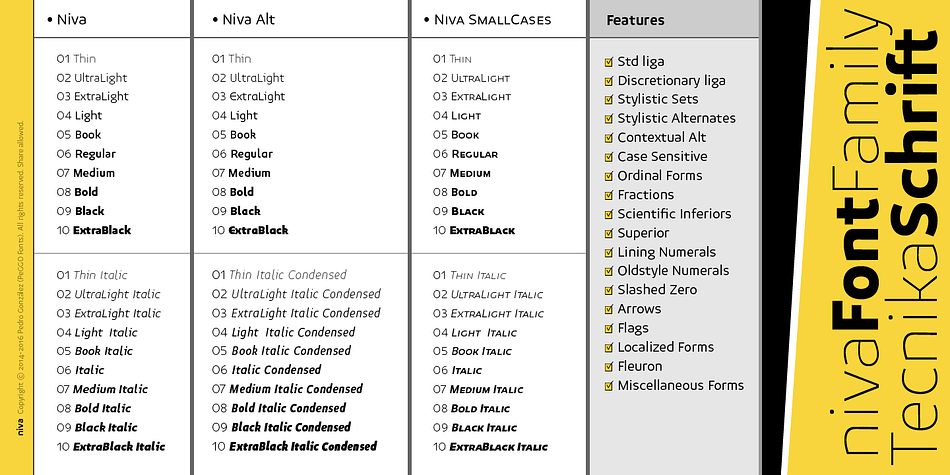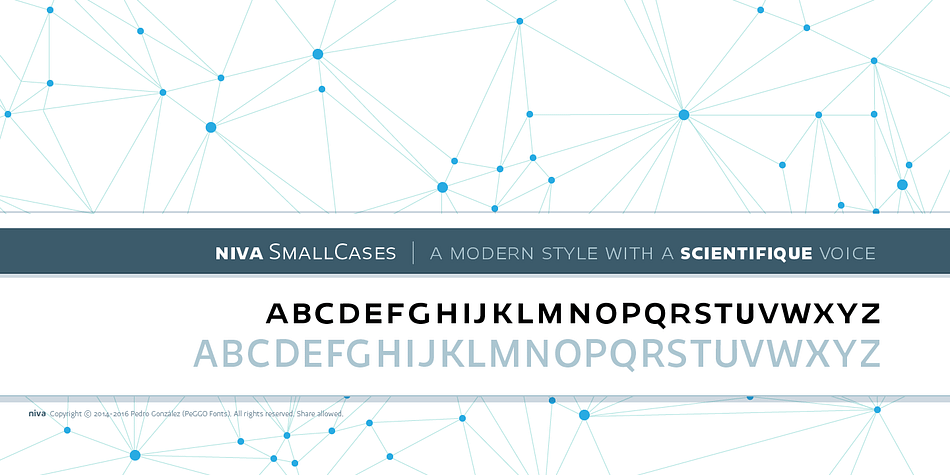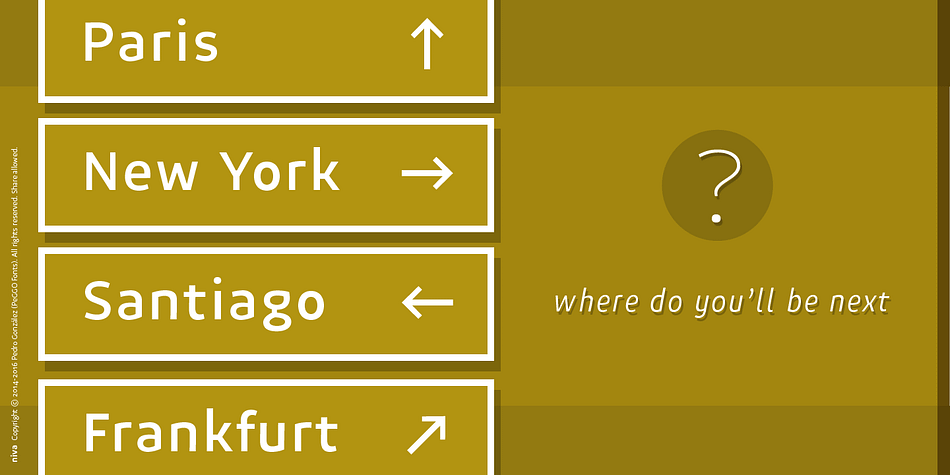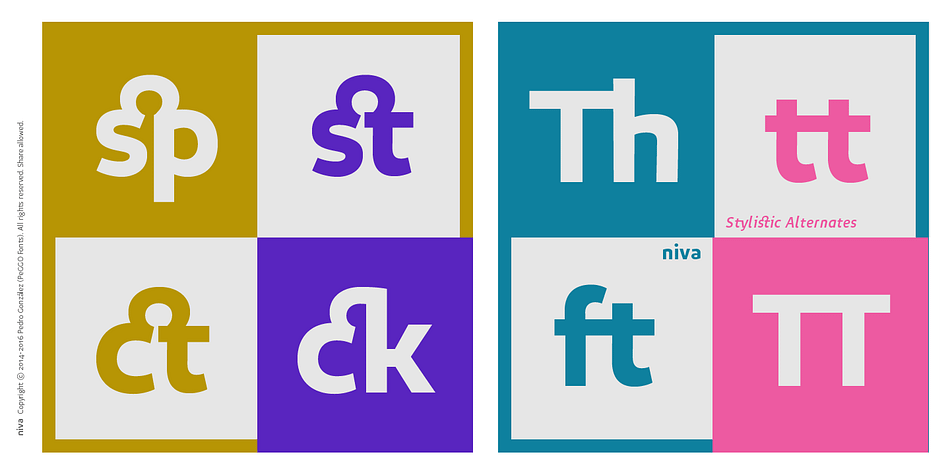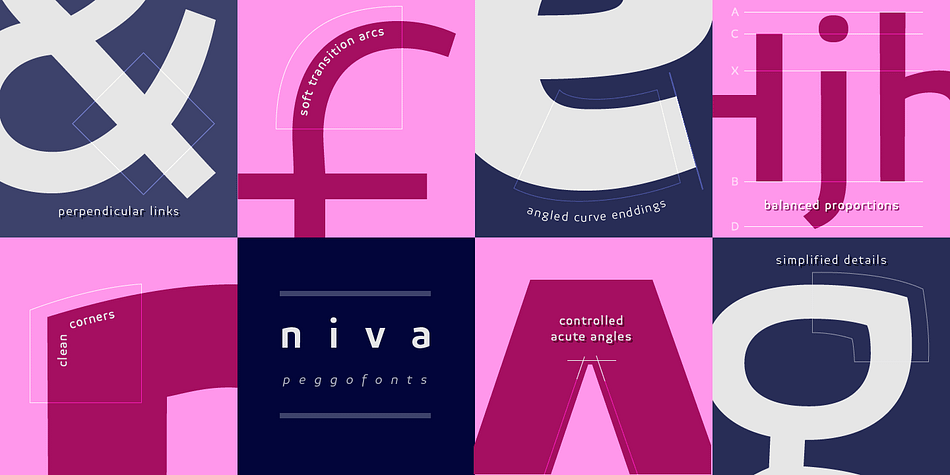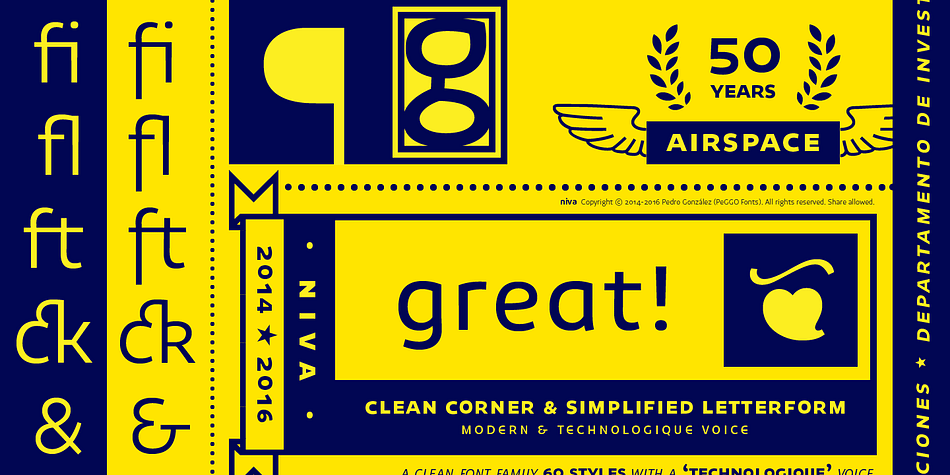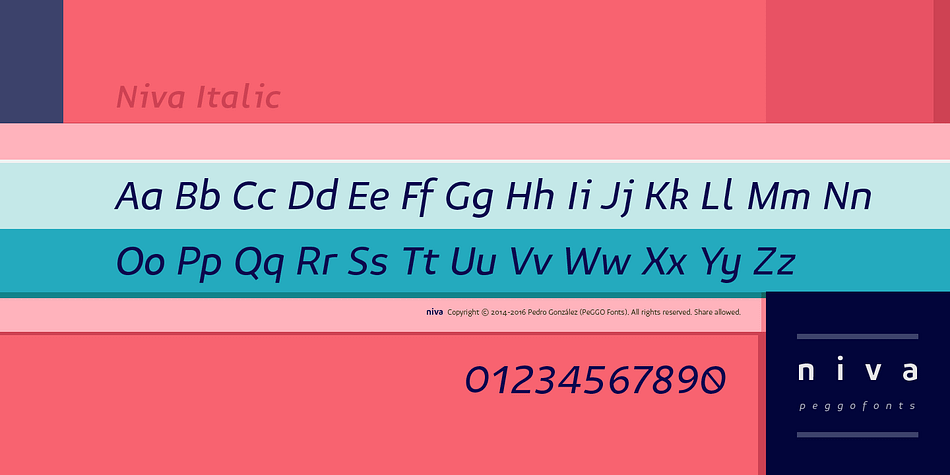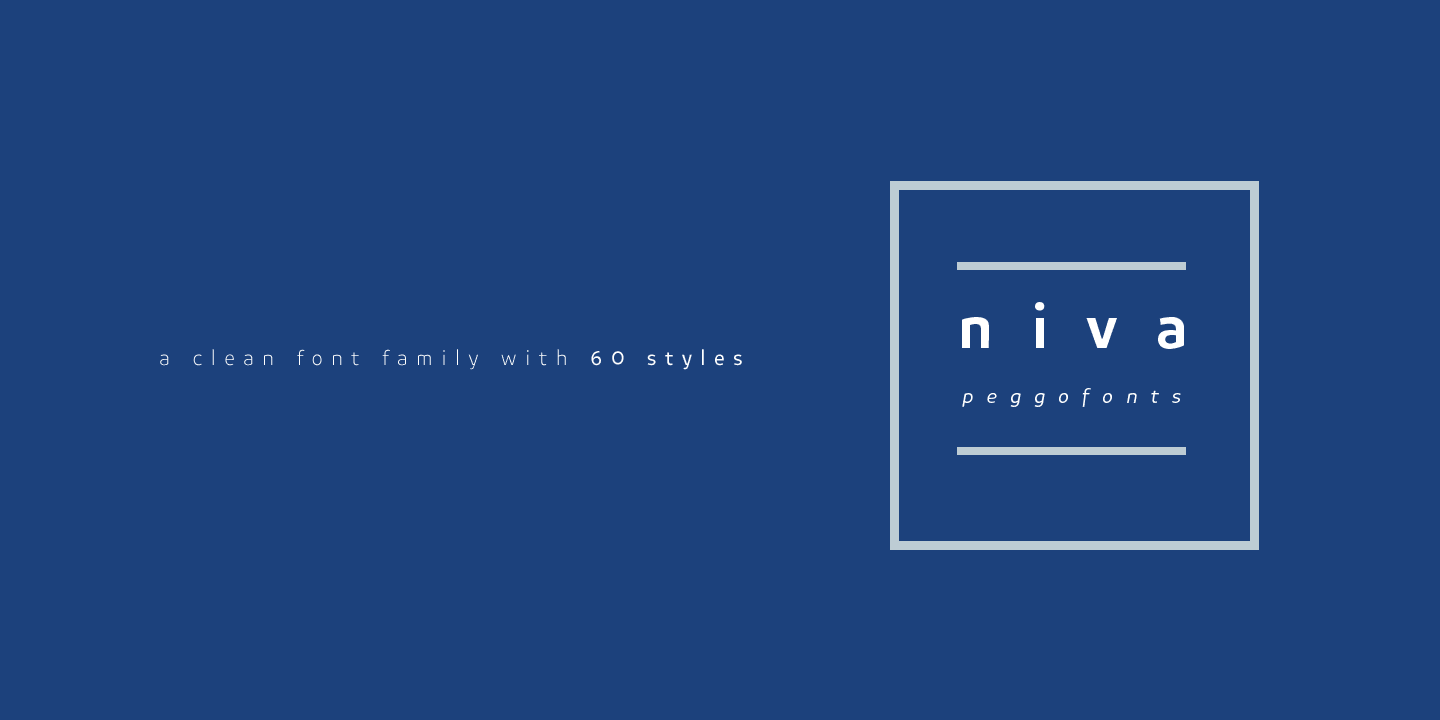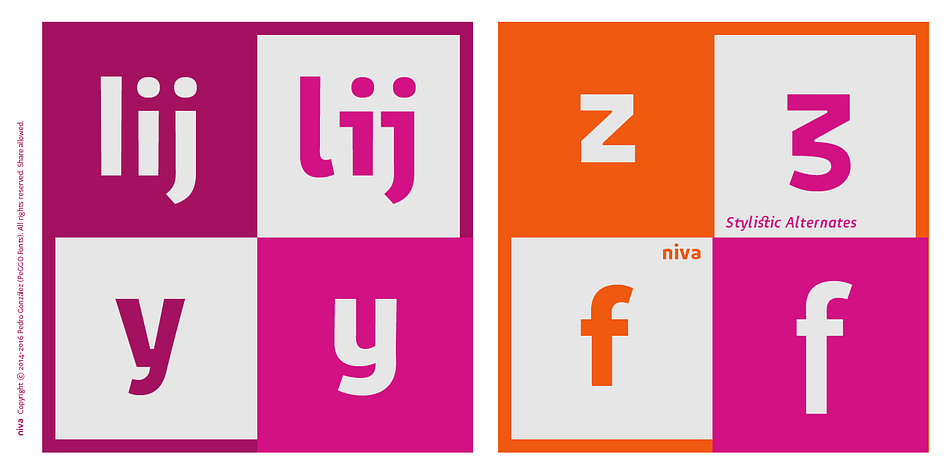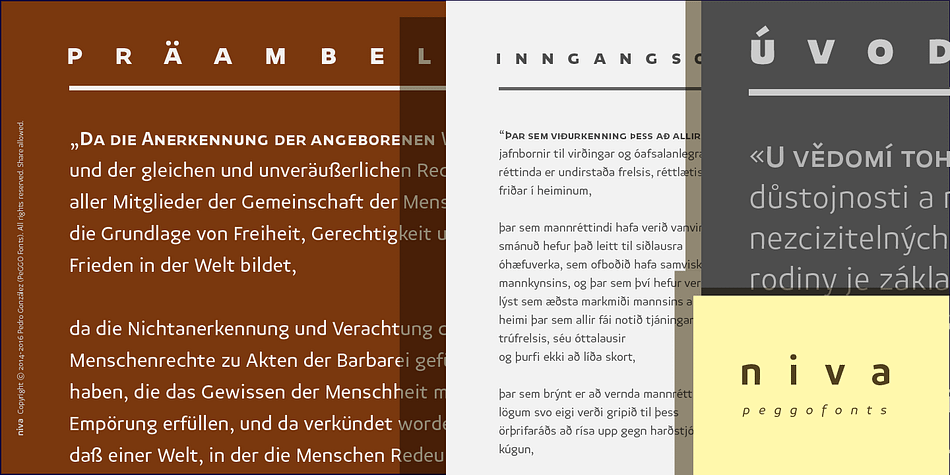
Designed by Pedro Gonzalez Jorquera, Niva is a sans serif and display sans font family. This typeface has sixty styles and was published by PeGGO Fonts.
Niva is a display font family with 6 typographical groups in 10 weights each one, including a standard version, 2 italic widths, an alternative version and true small caps with italic version, too.
The creative idea follows concepts like future, technology, science, the structural principle focus in simplify complex details on letterforms ‘clean corners’ giving a luminous and sophisticated design with a ‘technologique’ touch, built in legible proportions which works as well as ‘display (titles)’ and even at small ‘text’ requirements.
This family is especially recommended to be applied on digital and prints contexts as magazines, books, printed ads, UI & website design, digital mobile apps graphics, video and TV screen contents as videogames.